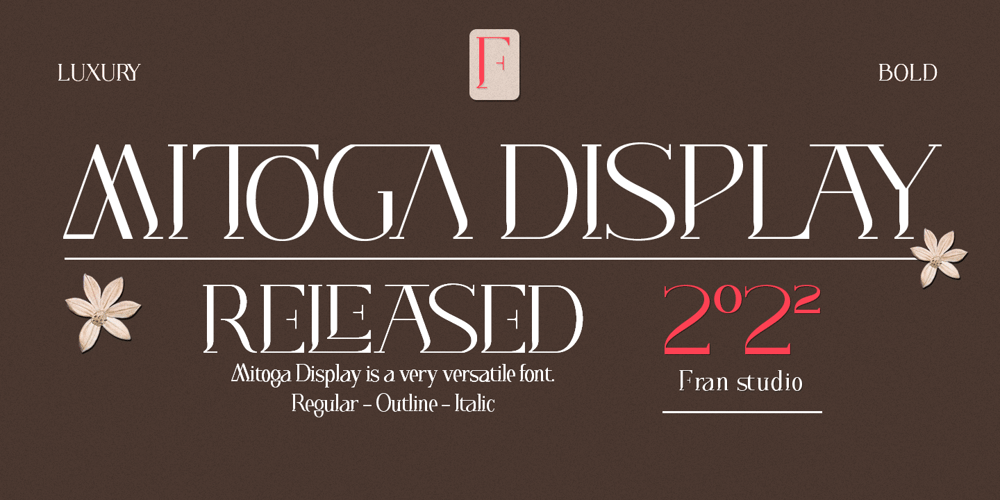
Mitoga Display
Mitoga Display font
Mitoga Display Font Family was designed by Niza Fahmi and published by Fran Studio. Mitoga Display contains 3 styles and family package options. Mitoga Display is a very versatile font.perfect for magazine images, to wedding invitations, to branding, poster design, and more.Files included:Mitoga DisplayMitoga ItalicMitoga OutlineNumerals & PunctuationStylistic Alternates & LigaturesPUA Encoded CharactersThanks so much for looking, I really hope you enjoy it and please don’t hesitate to drop me a message if you have any issues or queries 🙂